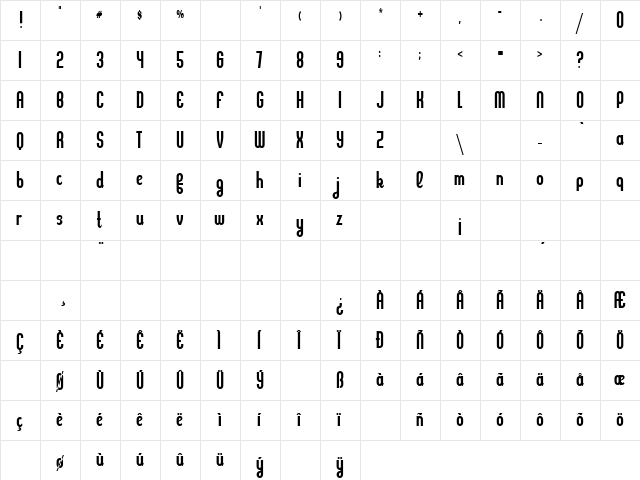
Kleptocracy Regular
| Foundry | Larabie Fonts |
Design Context for Kleptocracy Typeface
Kleptocracy is a composed and adaptable typeface that performs quietly and consistently across a wide range of design contexts.